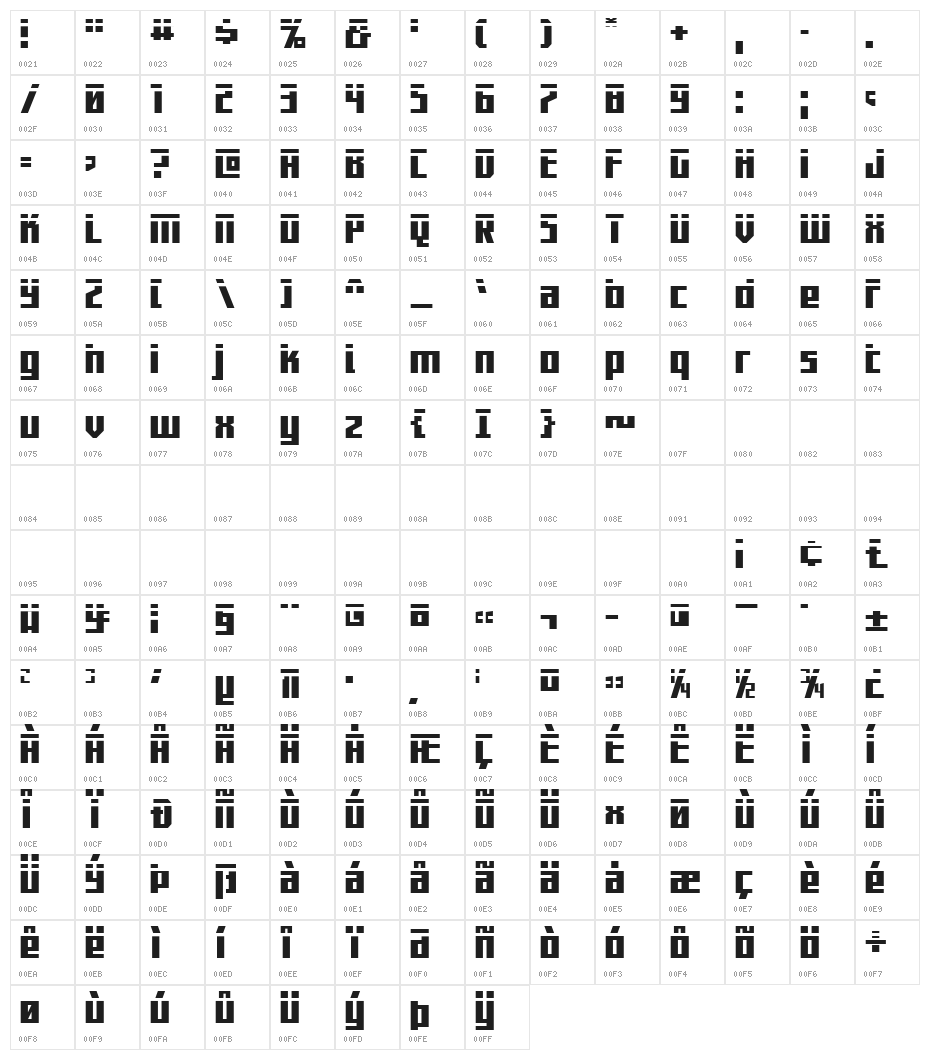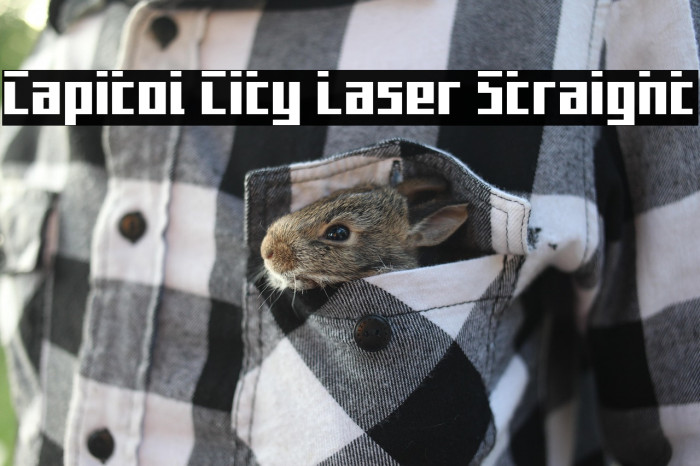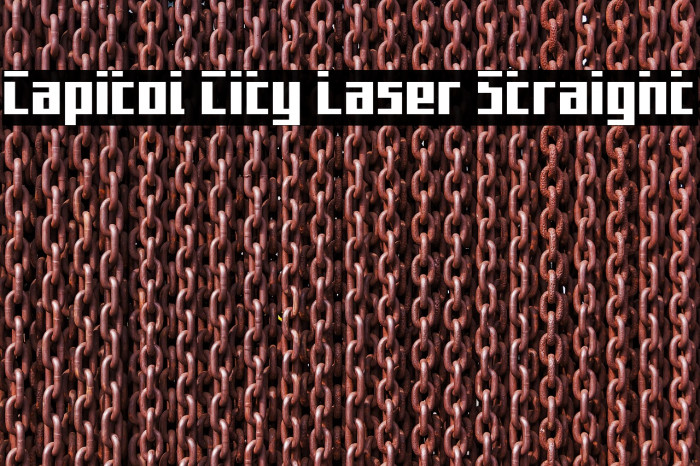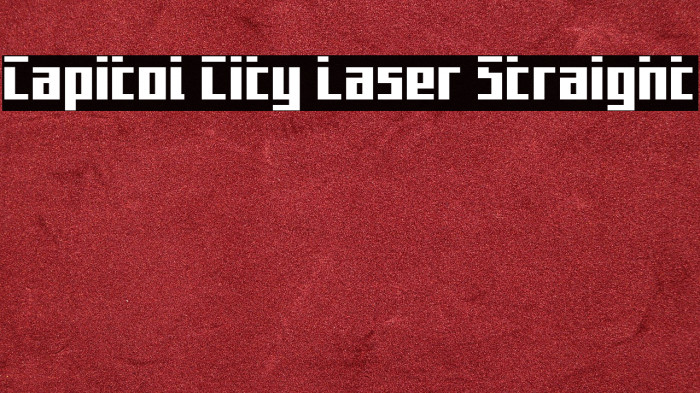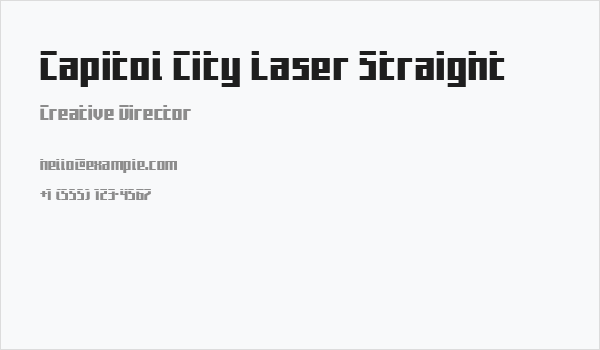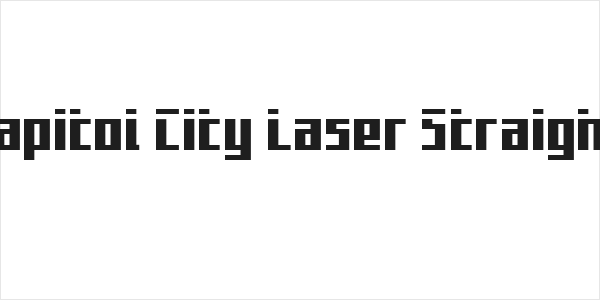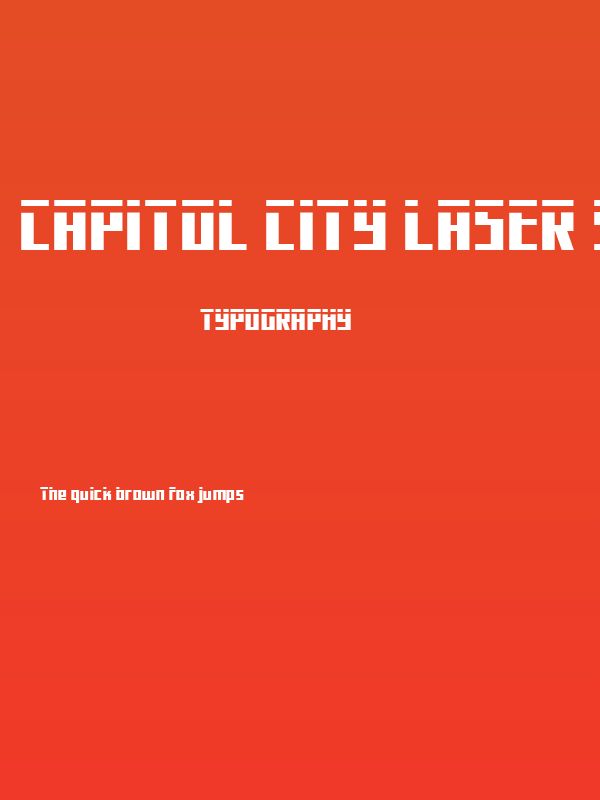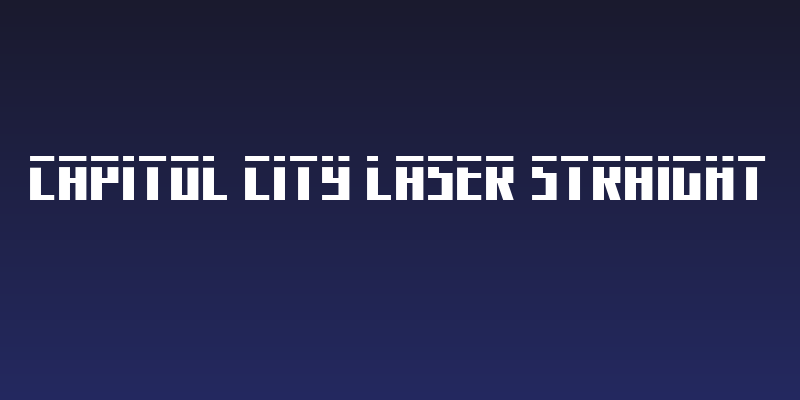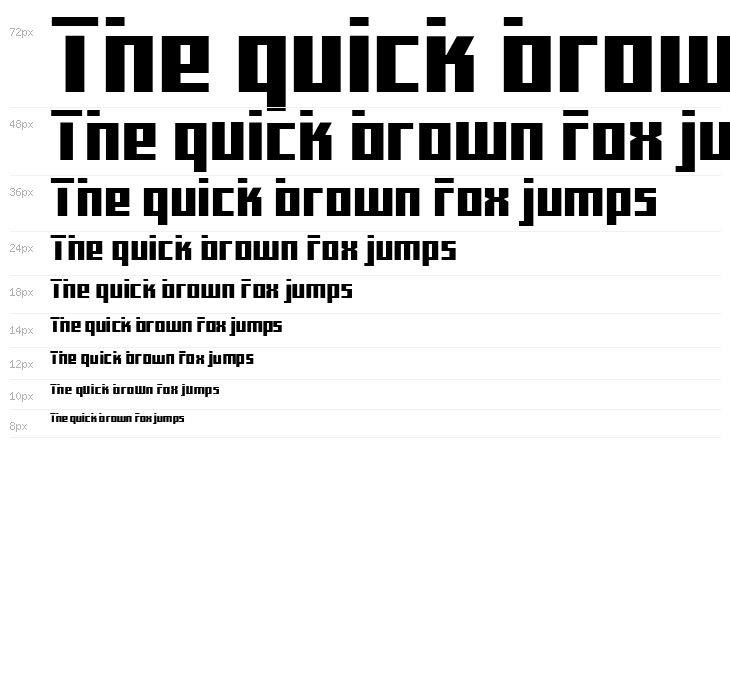
Capitol City Laser Straight Font
Capitol City Laser Straight Description
This font features a bold, geometric design with a futuristic and digital aesthetic. The characters are constructed with straight lines and sharp angles, giving it a distinctly modern and technological feel. The uppercase and lowercase letters maintain a uniform height, contributing to a cohesive and structured appearance. The numerals and special characters are designed with the same angular style, ensuring consistency across all glyphs. This font's unique style makes it stand out, ideal for projects that require a strong visual impact.